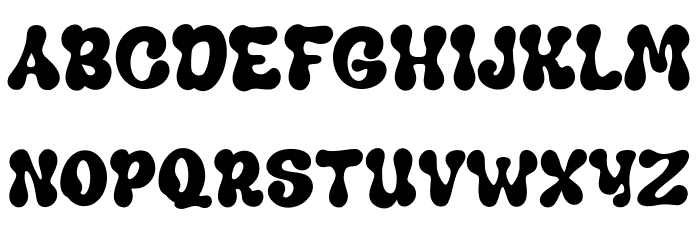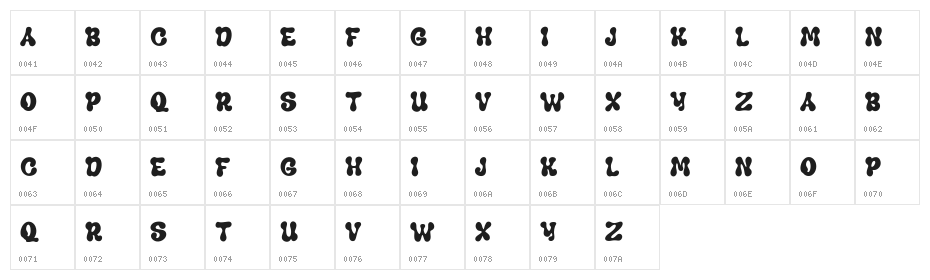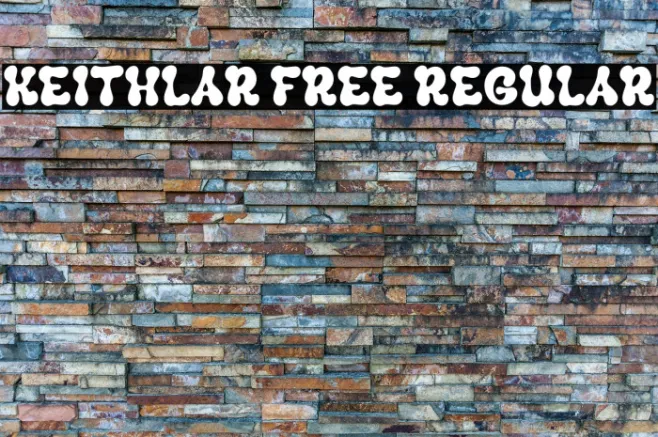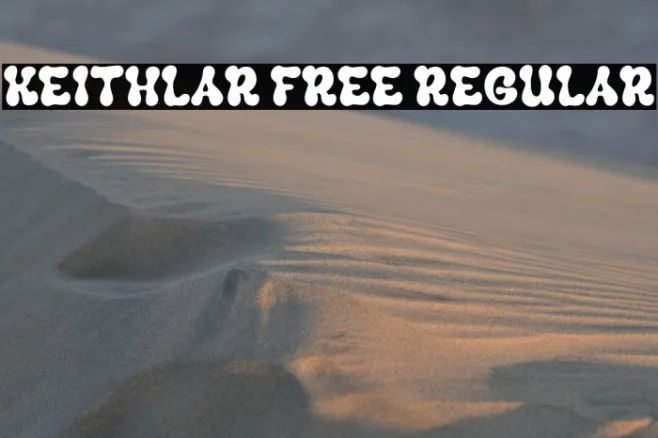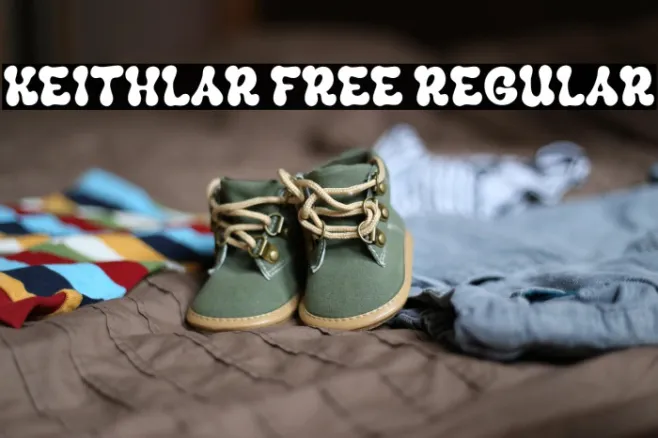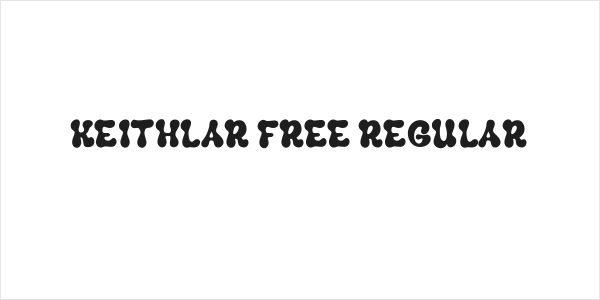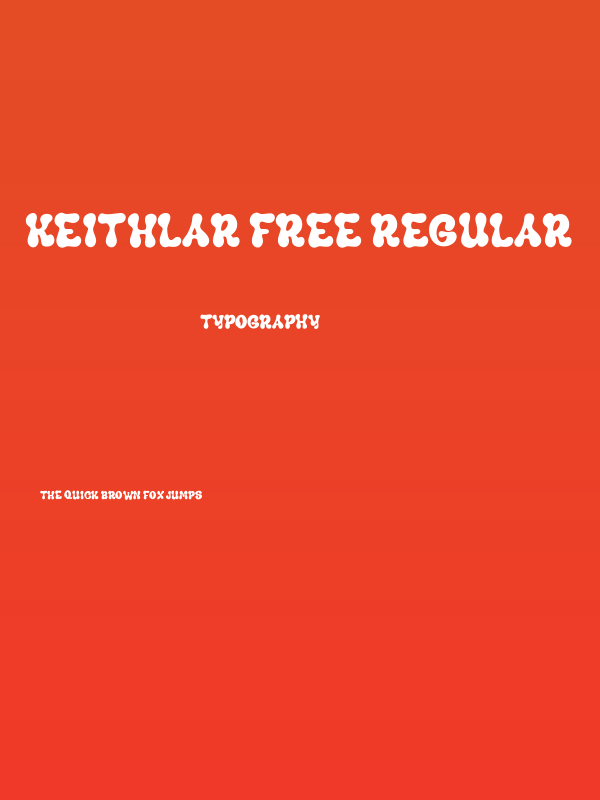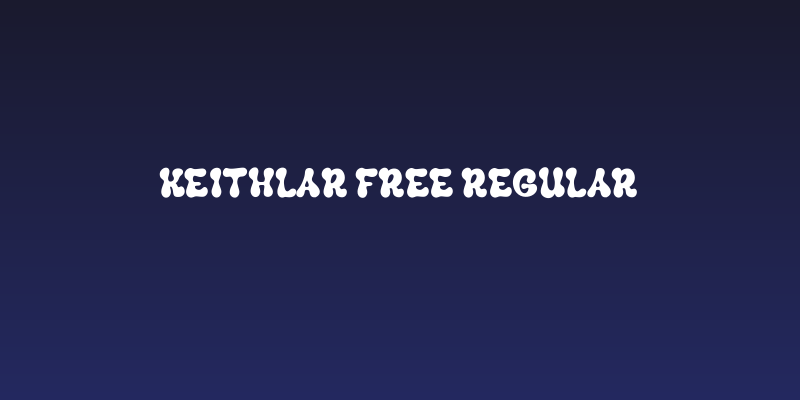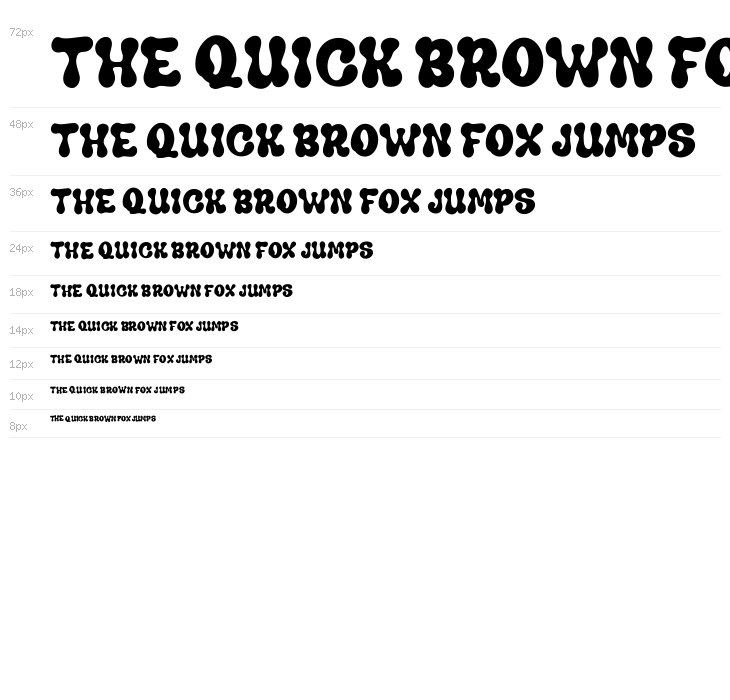
Keithlar Free Regular Font
This font features a bold and playful design with thick, rounded strokes that give it a bubbly and whimsical appearance. The characters are uniformly wide, creating a sense of balance and harmony across the typeface. The exaggerated curves and soft edges contribute to its friendly and approachable style, making it ideal for creative and informal applications. The font maintains a consistent weight throughout, ensuring readability while adding a touch of fun and personality to any project.
A bold, playful font with rounded strokes and a whimsical appearance.
- Proposed Projects: Ideal for children's books, playful branding, party invitations, and creative posters.
- Overall Style: Playful, Whimsical